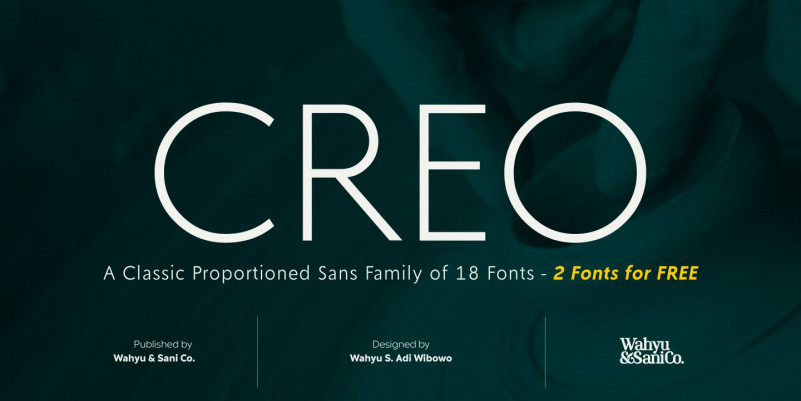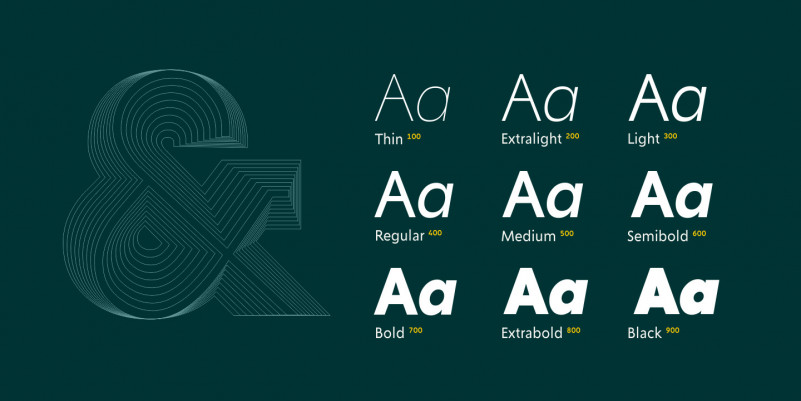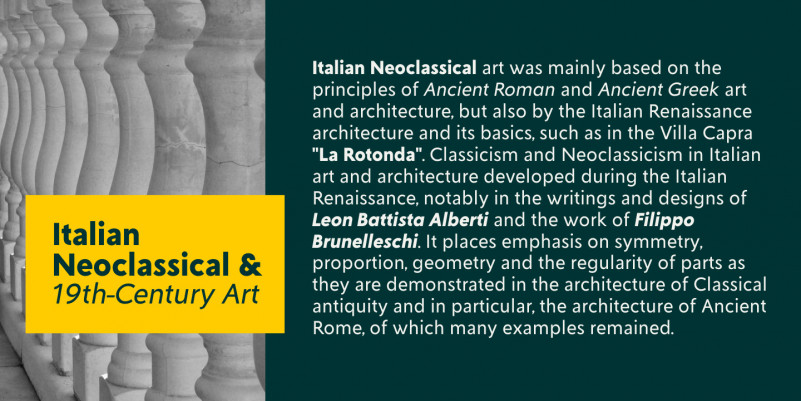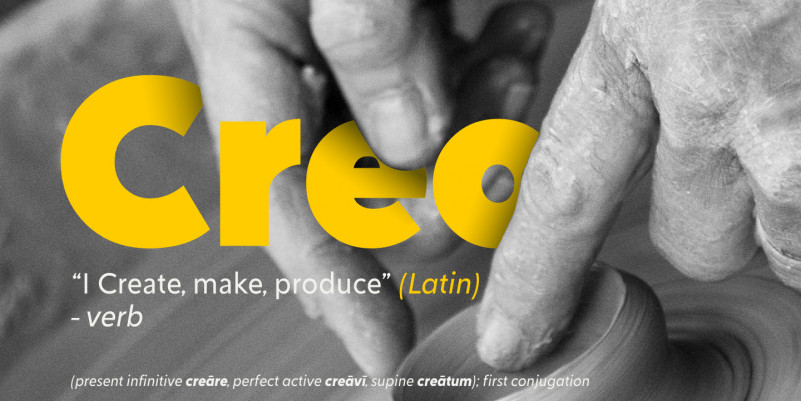
Creo Sans Font Family
Continue to be a geometric modern sans font family designed by Wahyu Wibowo. A sharp well-balanced geometric typeface, very legible and easy to use. An elegant and clean sans serif font. Introducing Creo Font. It’s a low contrast, classic proportioned sans serif family, consisting of 18 fonts, 9 weights from thin to black; with uprights and italics. The word “Creo” was taken from the Latin language and means “I create, make, produce” (verb), which also stands for ‘Classic Ratio’. The uppercase letters are highly influenced by Roman Inscriptional Capital letterform, and the lowercase letterform and their proportions were influenced by oldstyle serif typefaces.